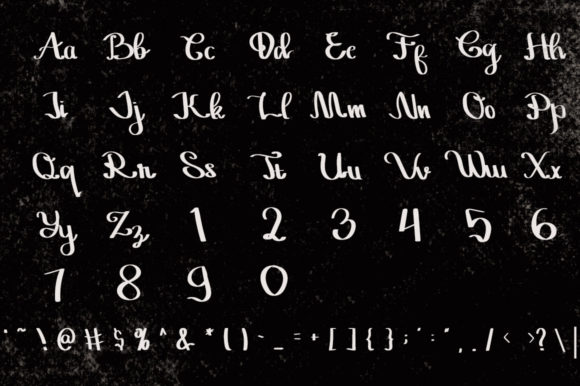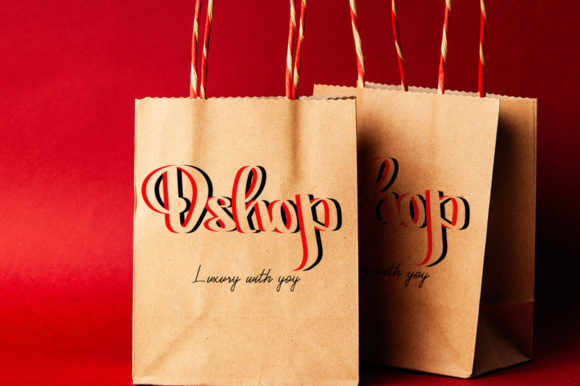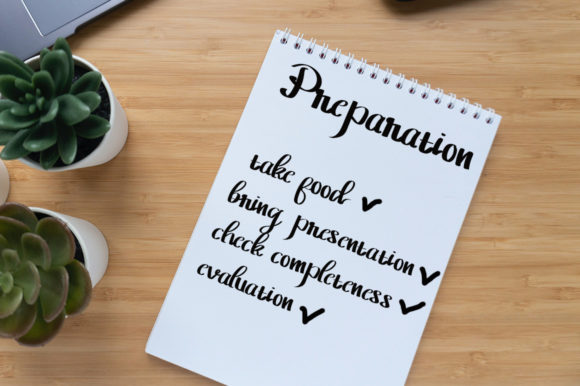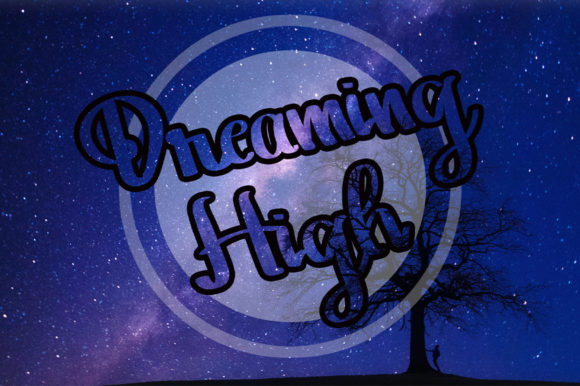
Hand Scribble Font
About Hand Scribble Font
Hand Scribble is a beautiful, vintage styled and distinct script font. It looks stunning on wedding invitations, thank you cards, quotes, greeting cards, logos, business cards and every other design which needs a handwritten touch.